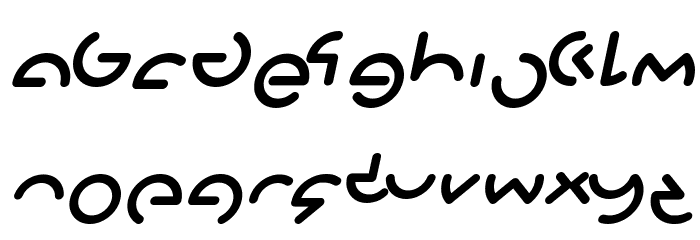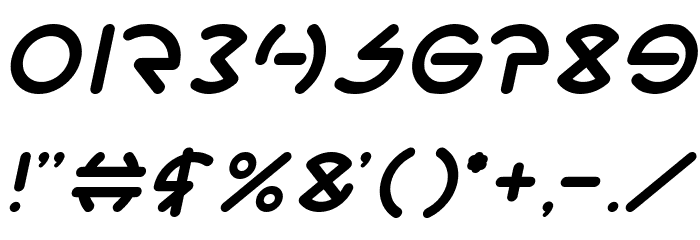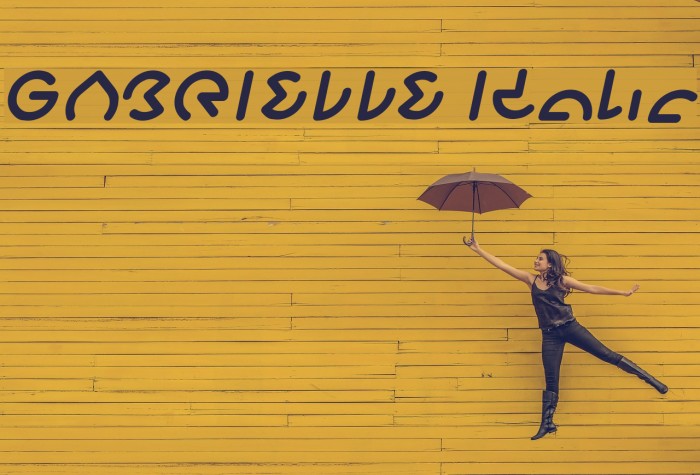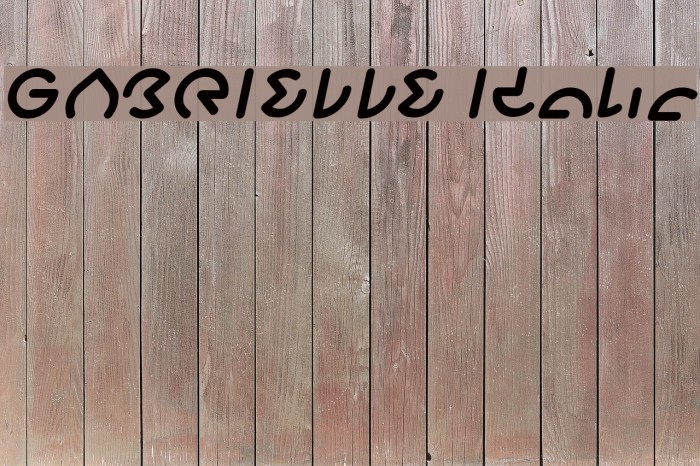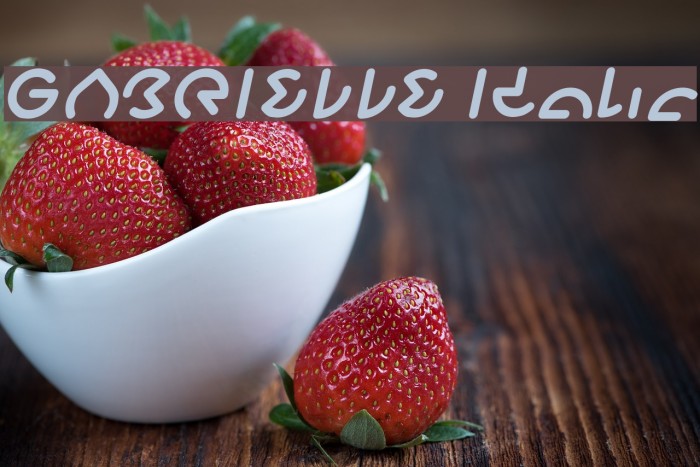
GABRIELLE Italic Font
This font exhibits a unique, flowing style with a modern twist. The characters are rounded and connected, giving a sense of continuity and movement. The strokes are consistent in thickness, providing a smooth and cohesive appearance. The font's italic nature adds a dynamic and elegant touch, making it suitable for creative and artistic projects. The overall design is both playful and sophisticated, with a hint of futuristic flair. The special characters maintain the same fluidity, ensuring uniformity across all elements.
A modern, flowing italic font with rounded, connected characters.
- Proposed Projects: Ideal for branding, creative posters, artistic invitations, and modern web design.
- Use Case: Logos, Headlines, Artistic projects